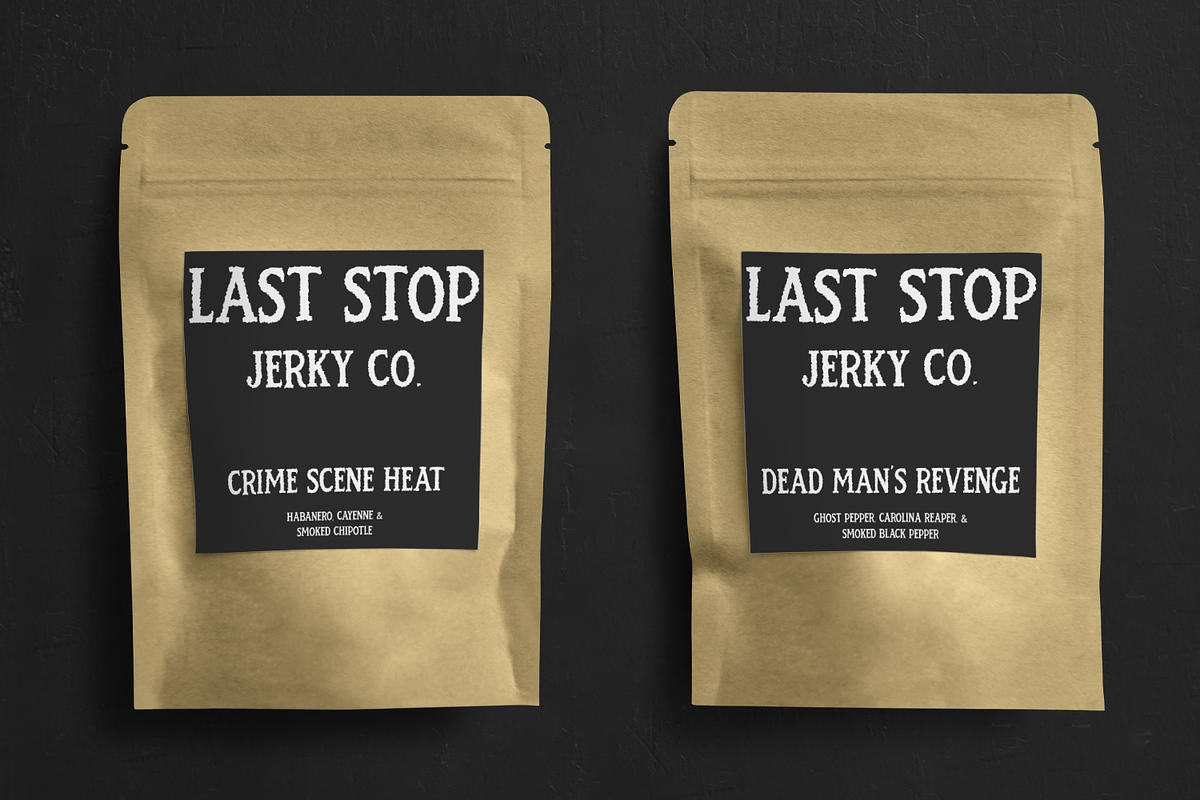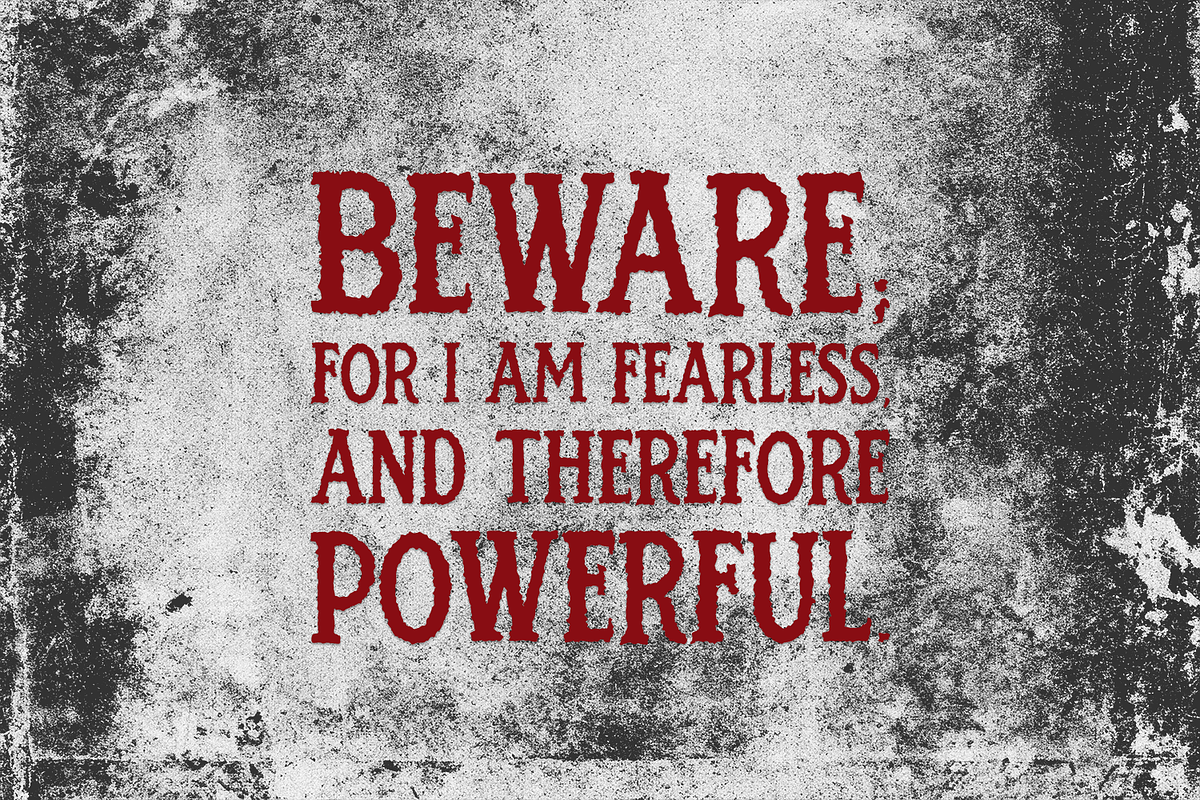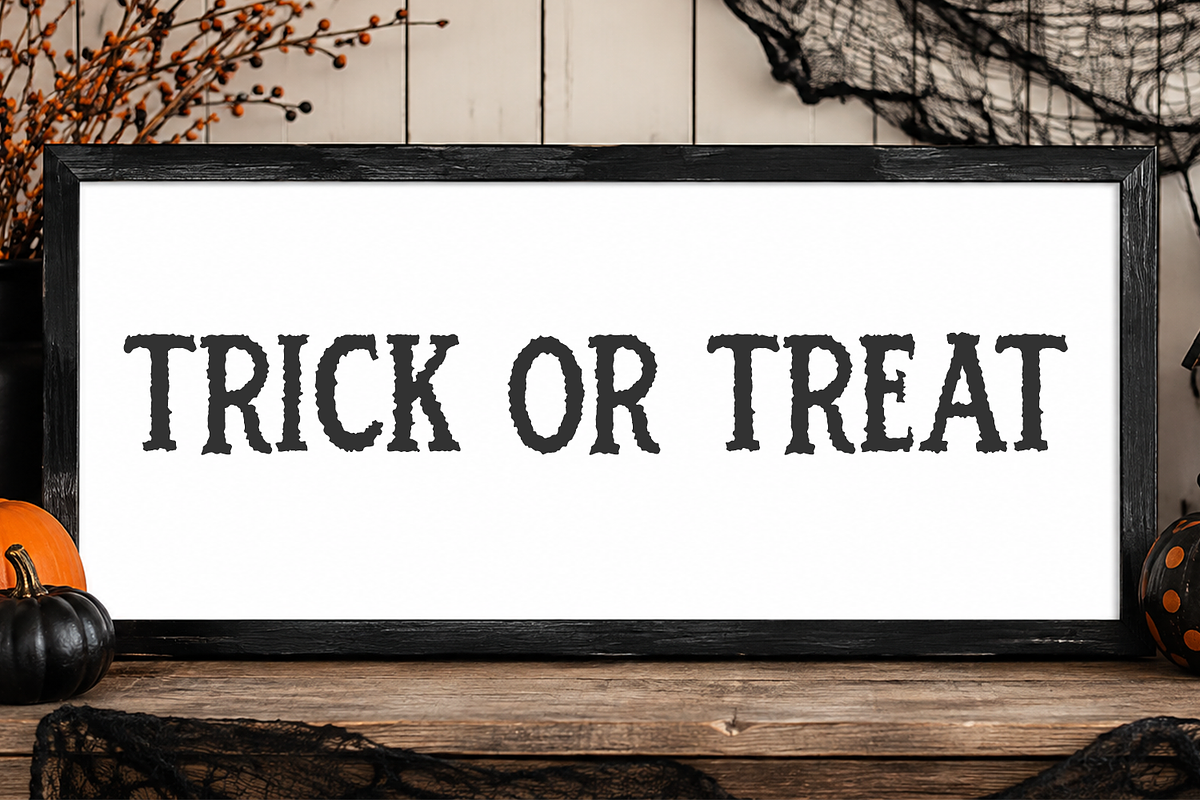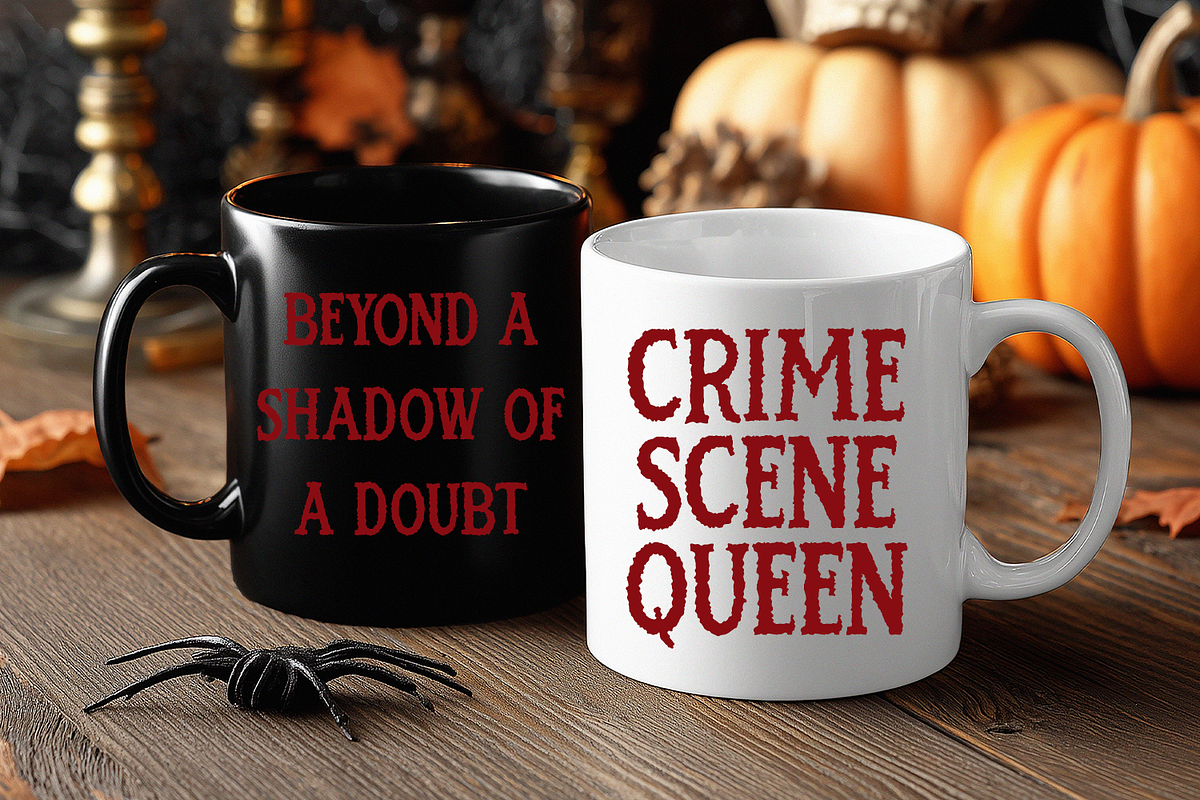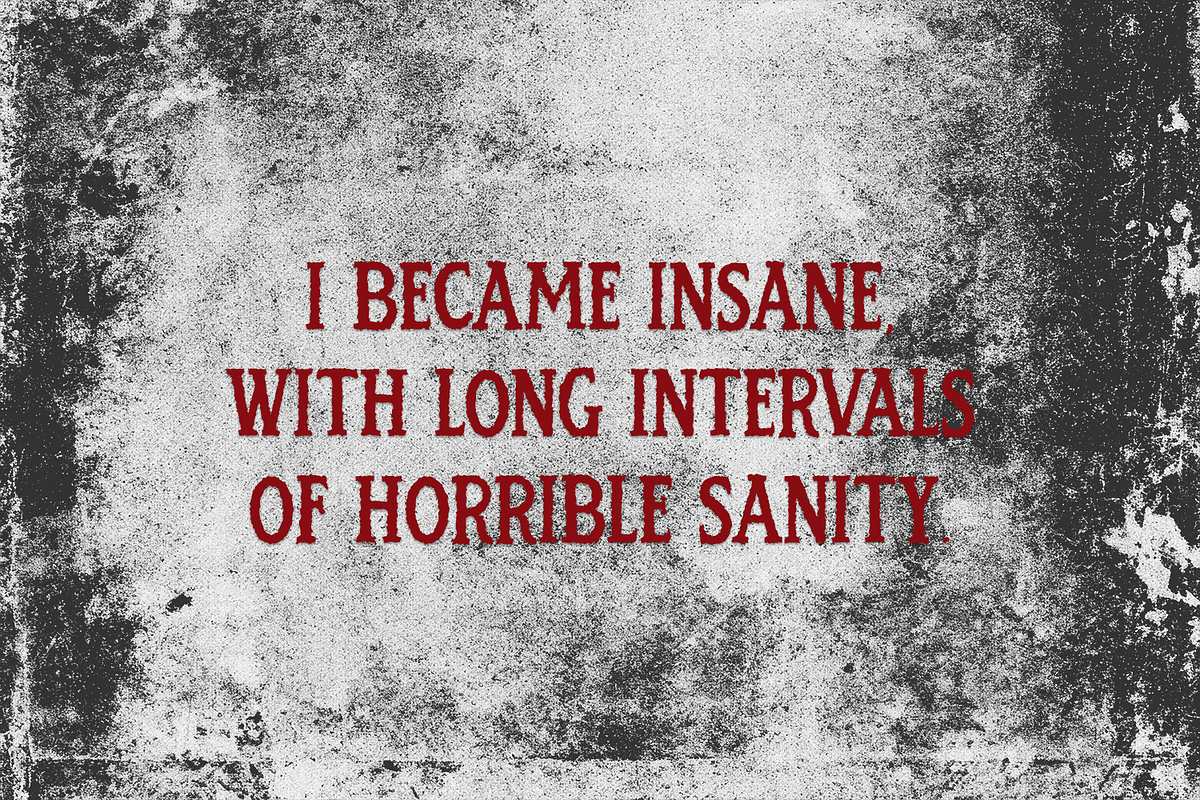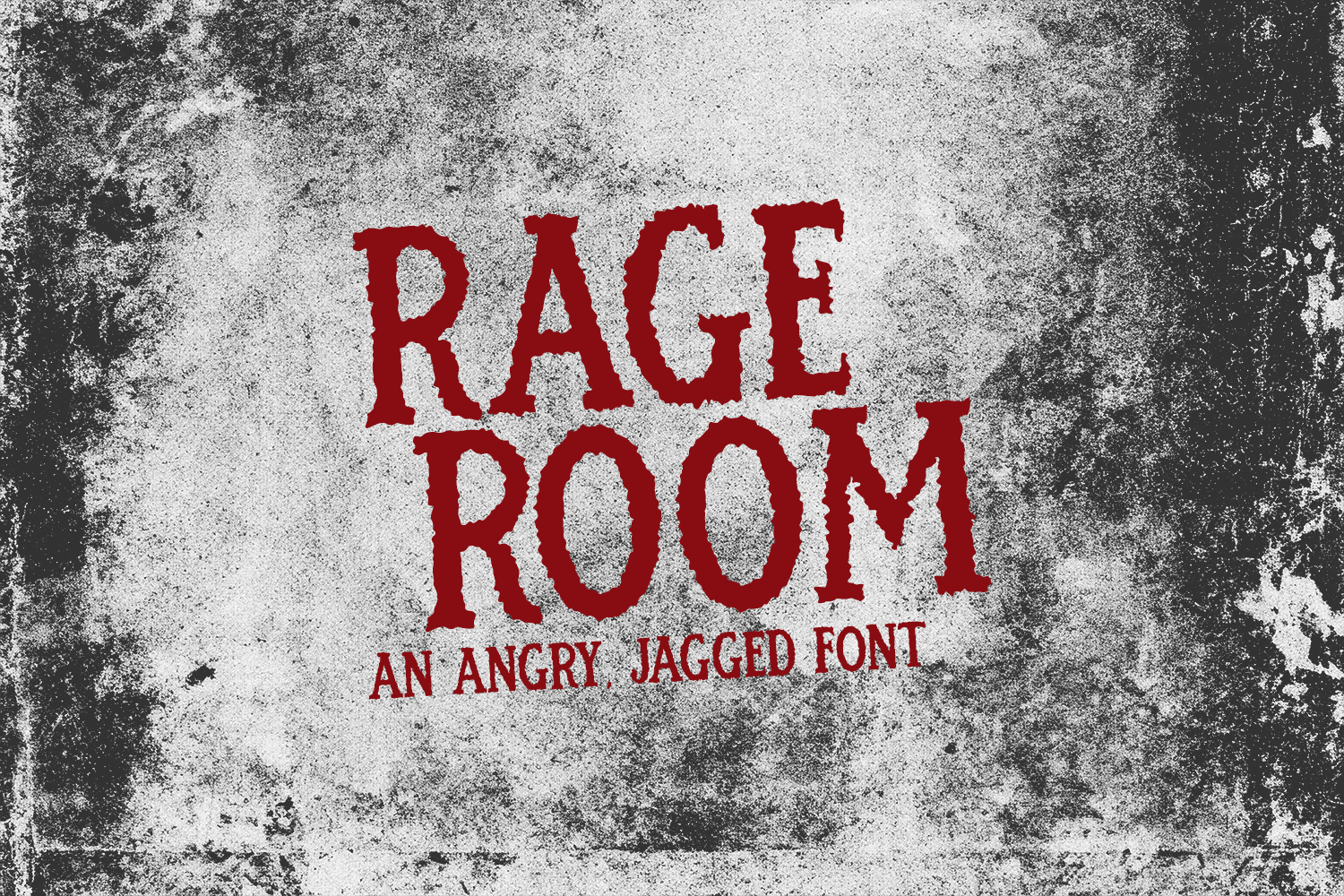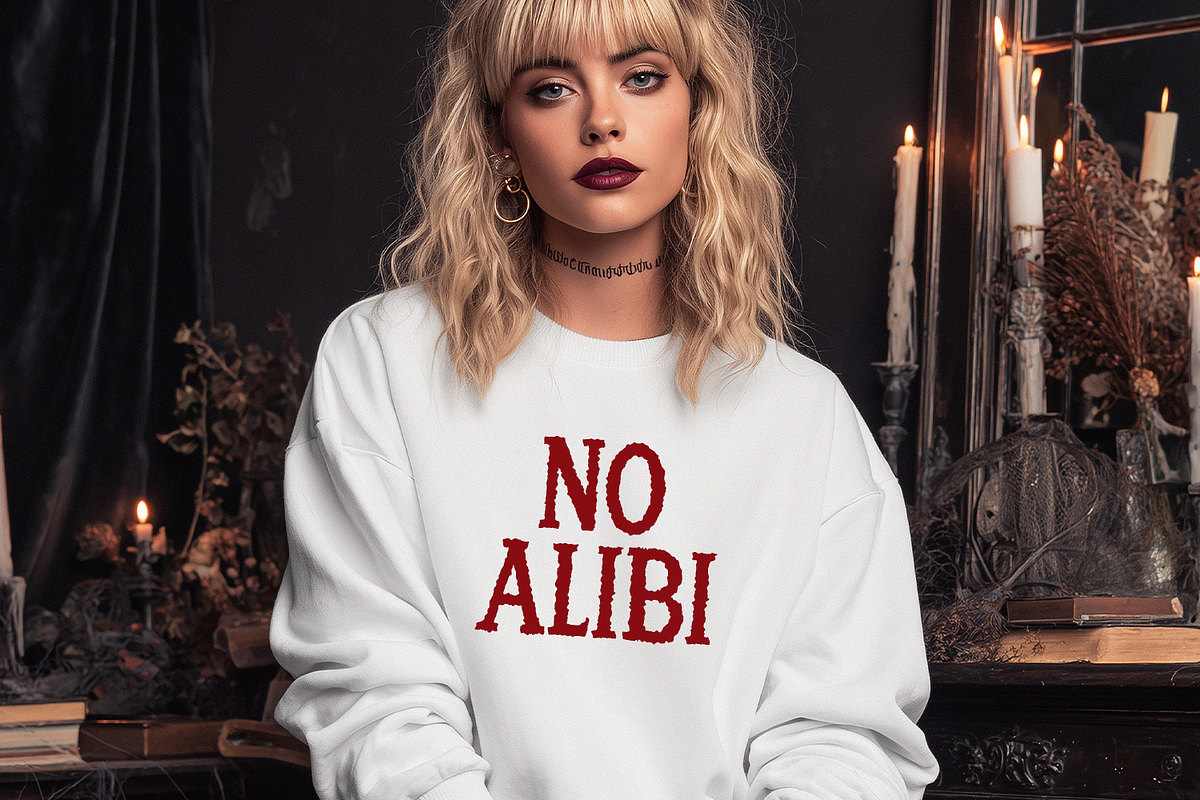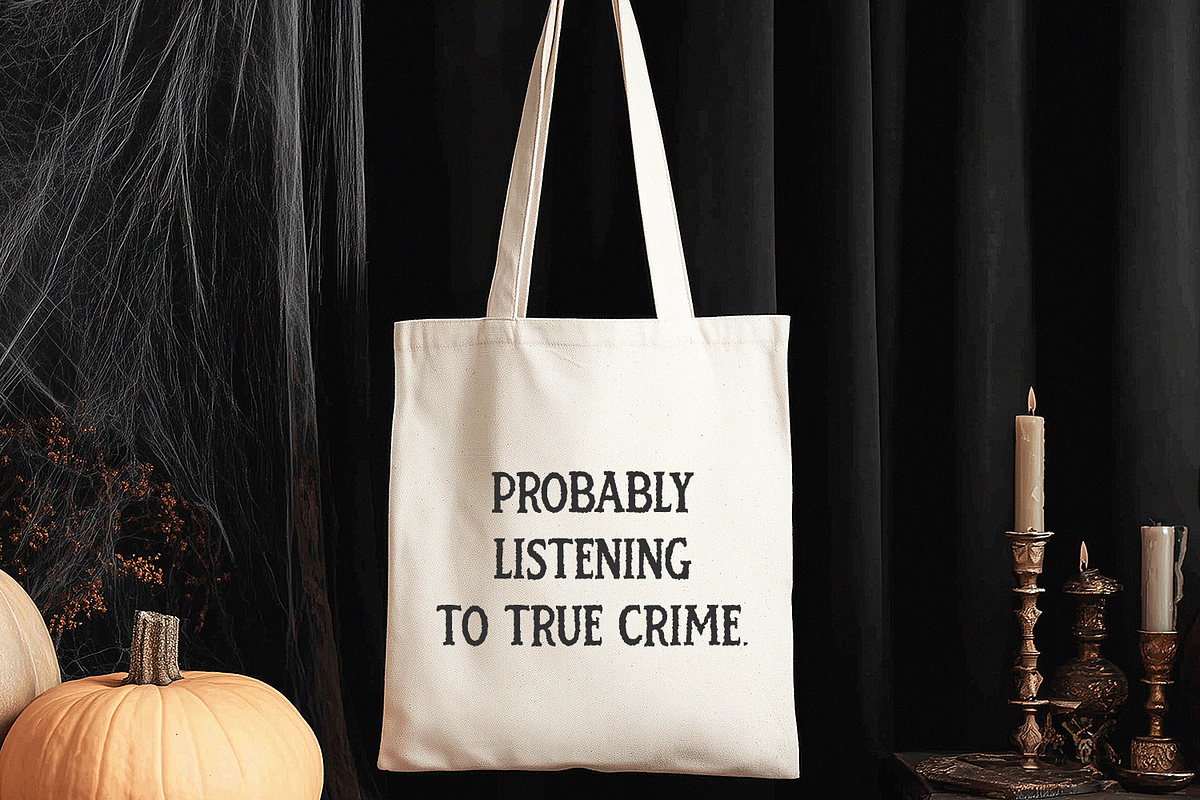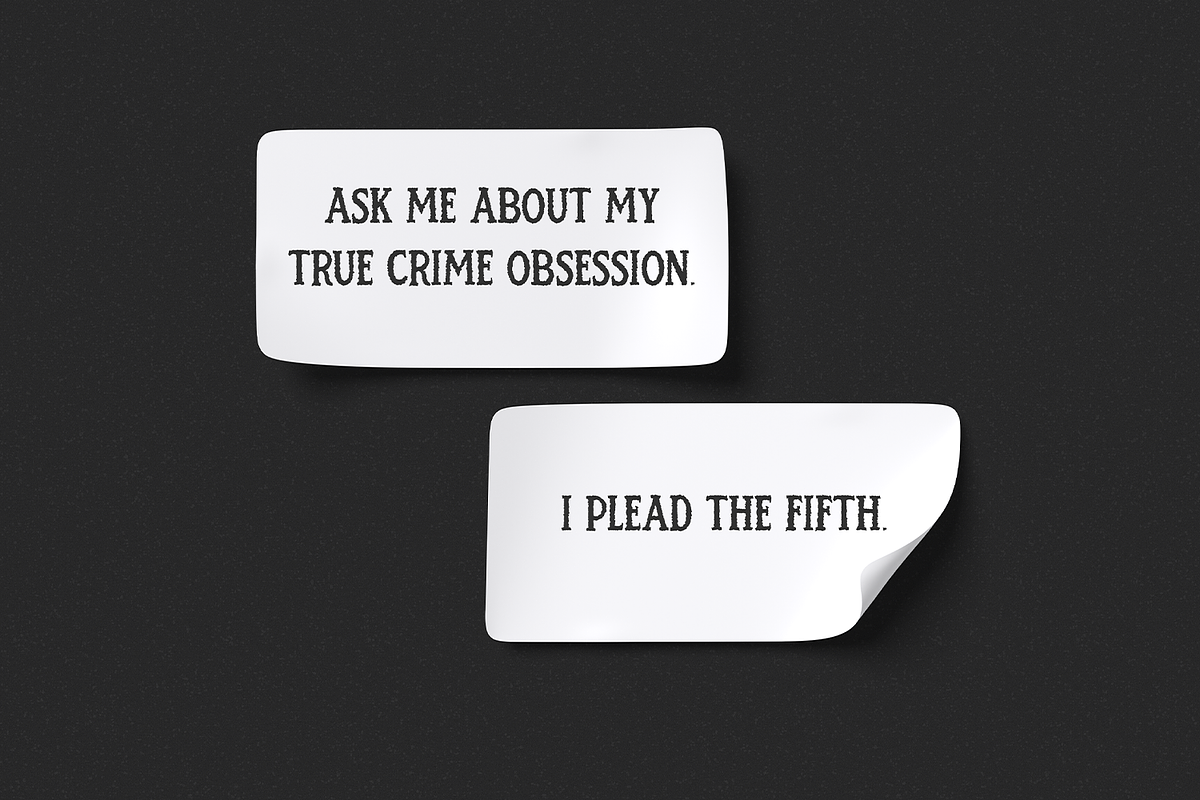
Rage Room Serif Font
Rage Room is a jagged, heavily textured all-caps font. It looks scary, aggressive, and angry. Use for horror movie & Halloween themed designs, true crime apparel, or gritty branding. I personally love this font for every day items that most folks might find a bit scary - like the jerky branding in the images! As a mildly obsessed superhot pepper grower, spicy jerky, hot sauces, pepper jellies, and spice blends absolutely need Rage Room on their labeling. Crafters beware: don’t vinyl cut with this font, y’all. Stick to print then cut only.
- full upper + lowercase characters (all caps programmed into lowercase slots, too)
- numbers + punctuation